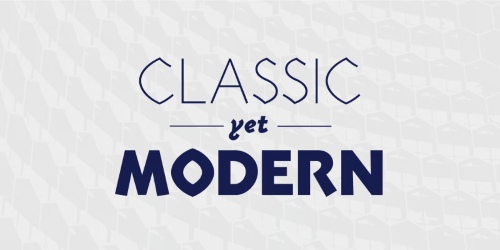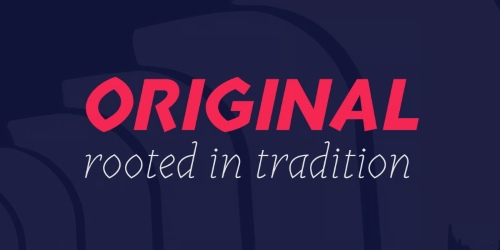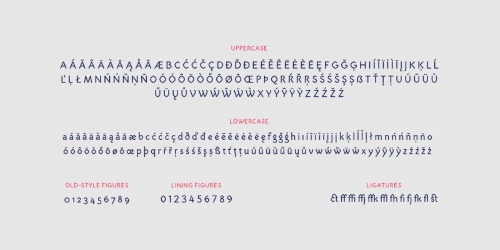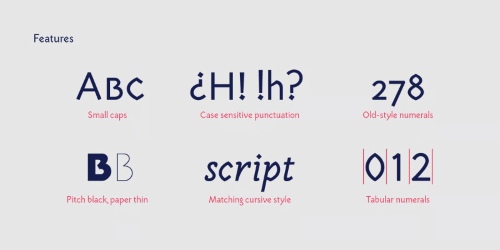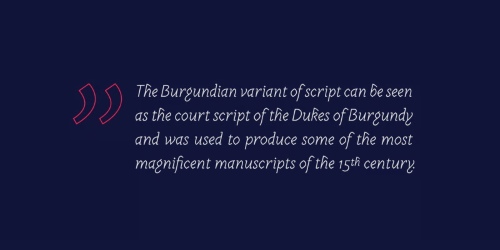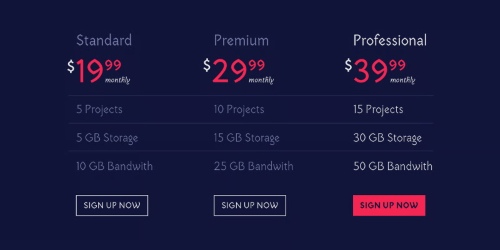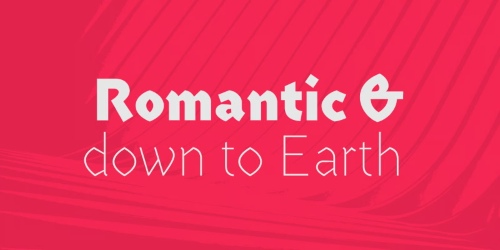
Mezalia Sans - 20 Styles Font Family
- Mezalia family. Its shapes are based on medieval calligraphic style: the Bastarda. This time the evolution is taken a step further, as these classic shapes are merged with the straightforwardness of a modern sans-serif. This results in an original, strong yet very much usable typeface, that can hold its own in a wide range of applications. Mezalia Sans has two distinct styles: straight and cursive (true italic if you will, although the word is not really correct here), which come in ten weights, from thin to black. This wide range ensures that whether you are looking for delicate or bold strokes (or a combination of both) you will be satisfied. Every style also contains a set of small caps (with matching punctuation). Old-style, proportional and tabular numerals are included too, along with ligatures, symbols and language support in Adobe Latin 3 range.